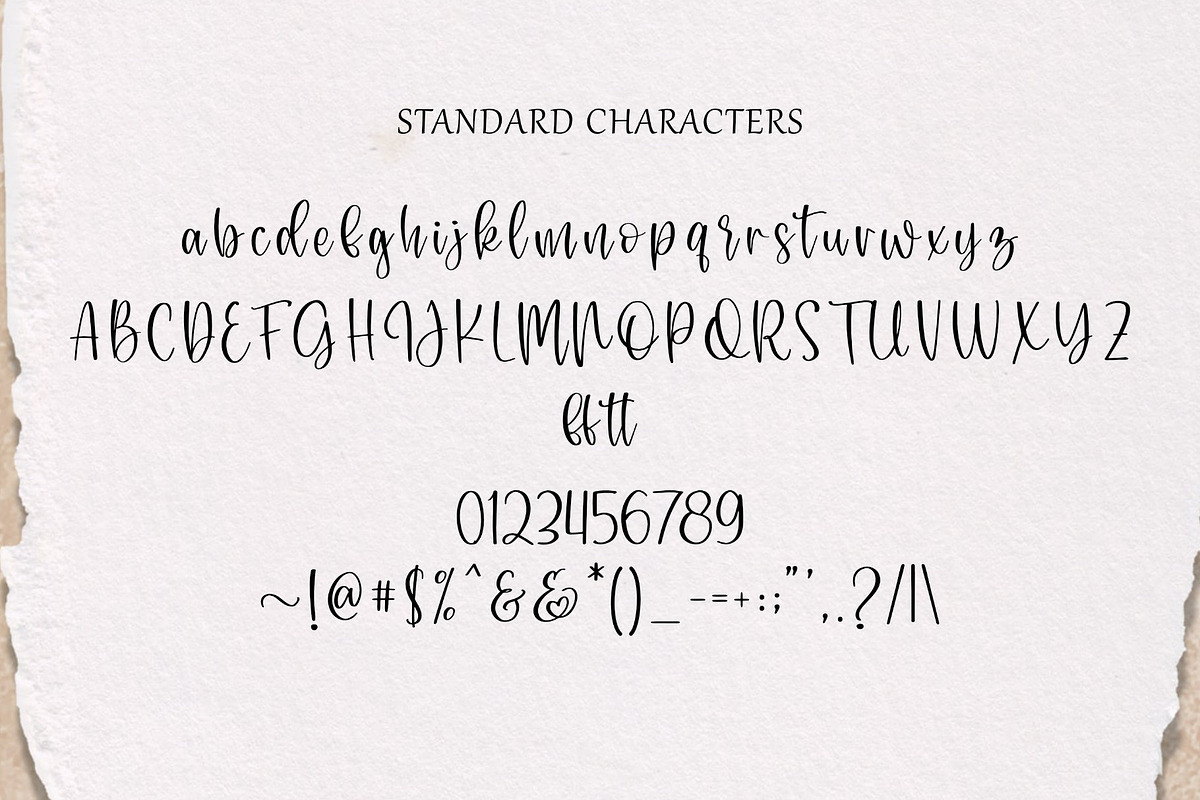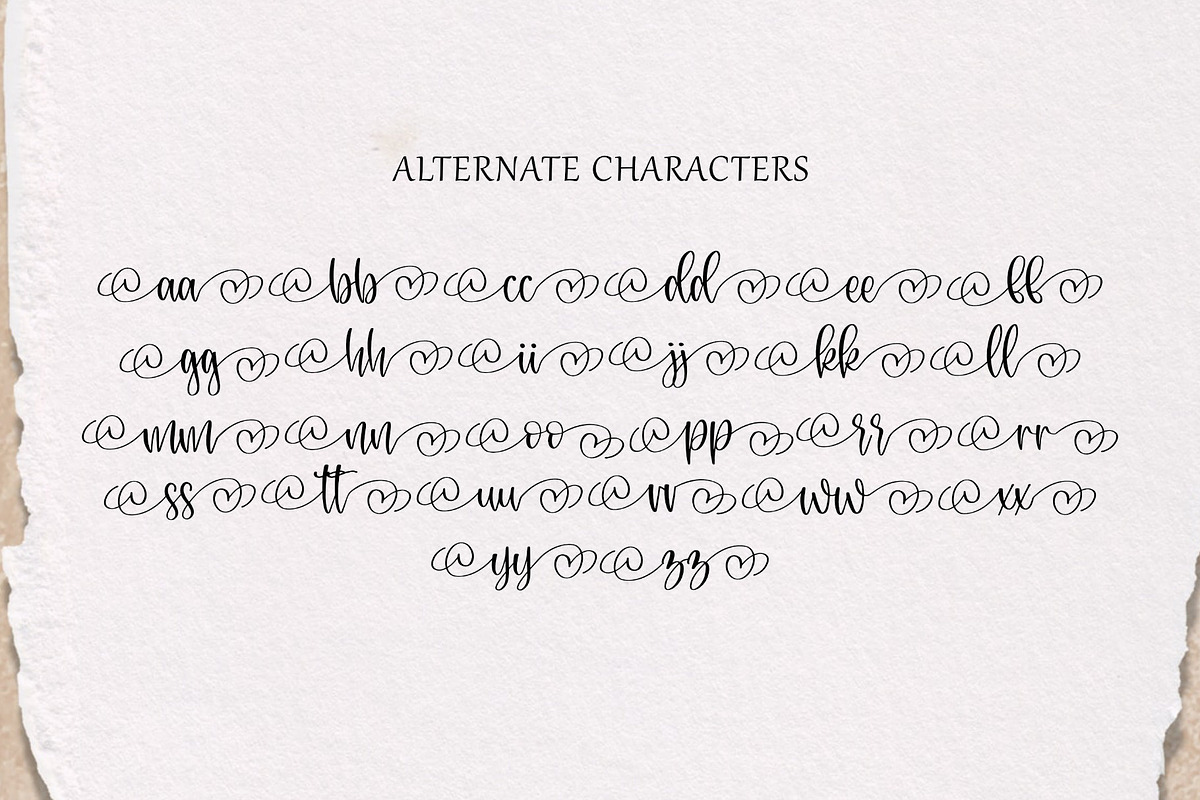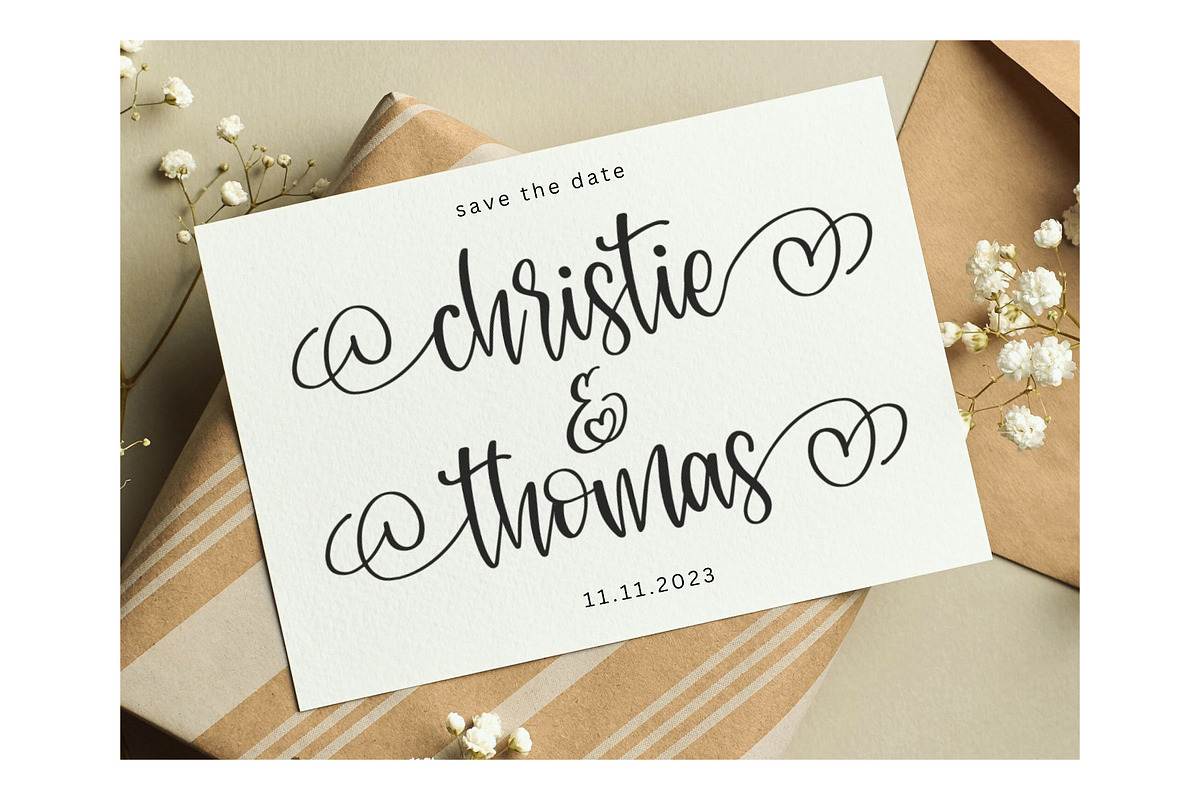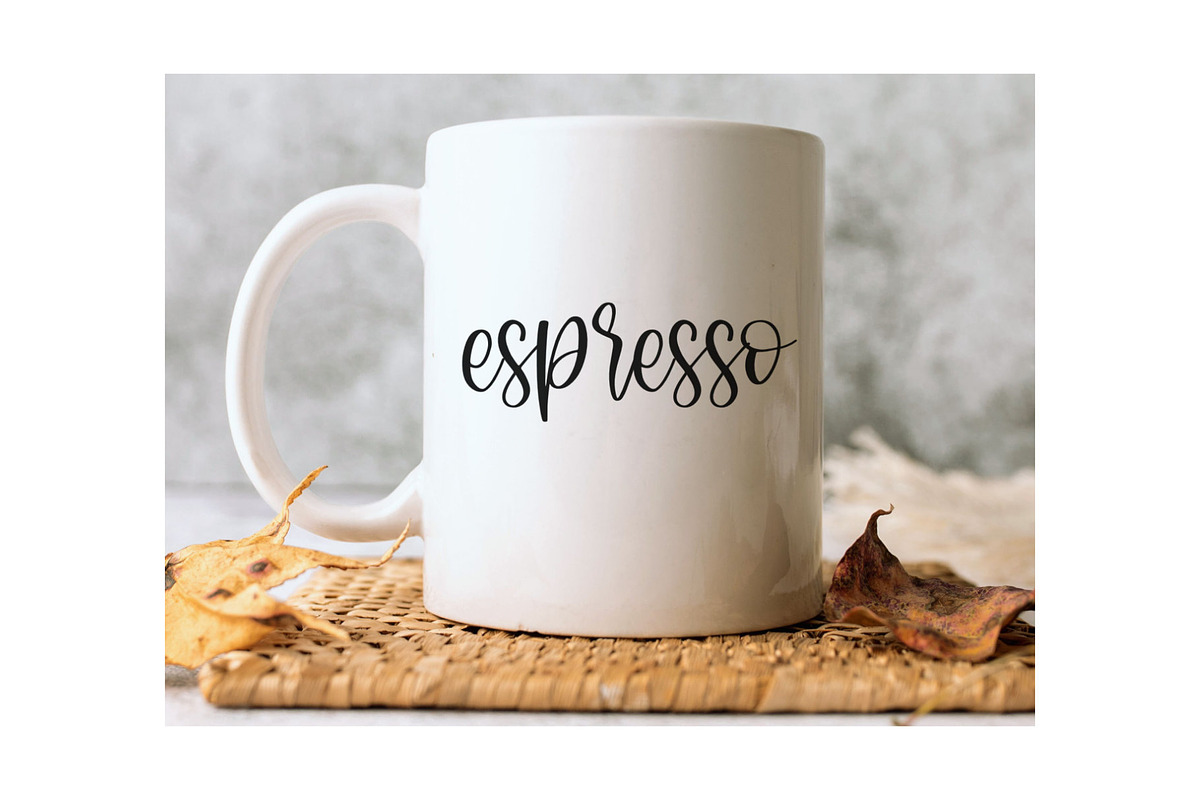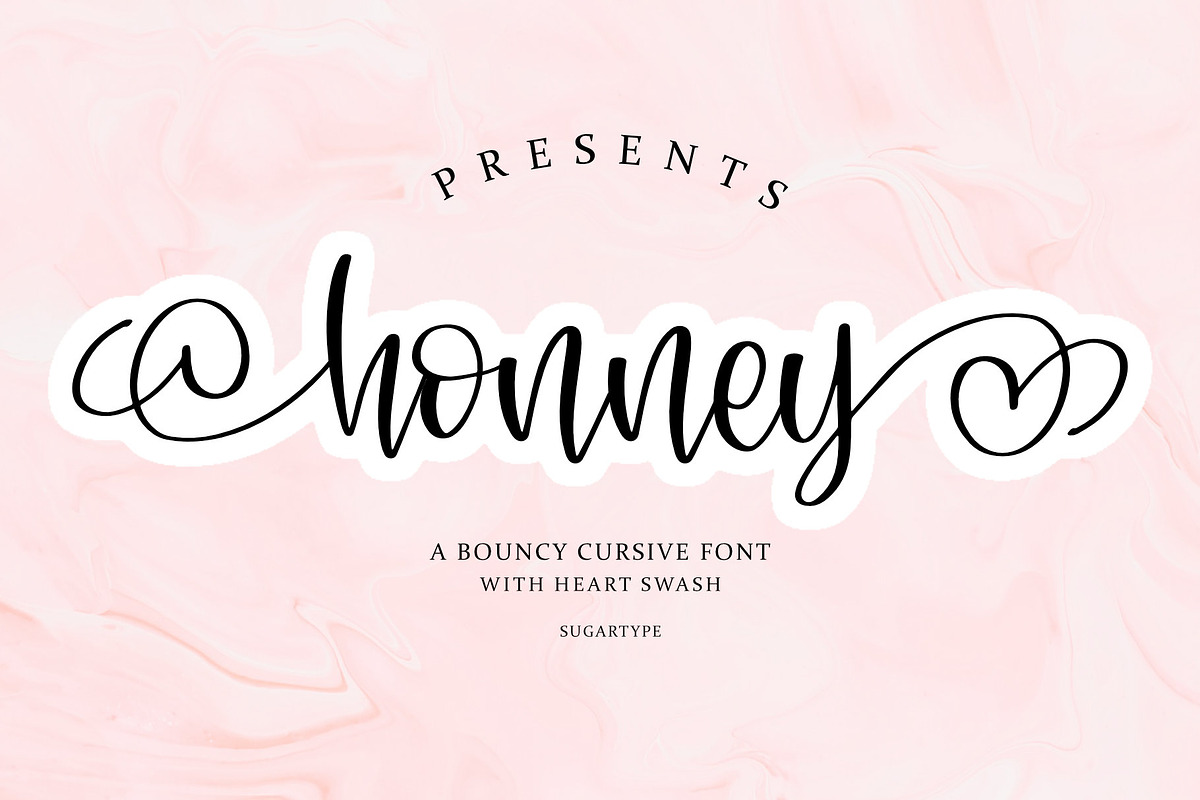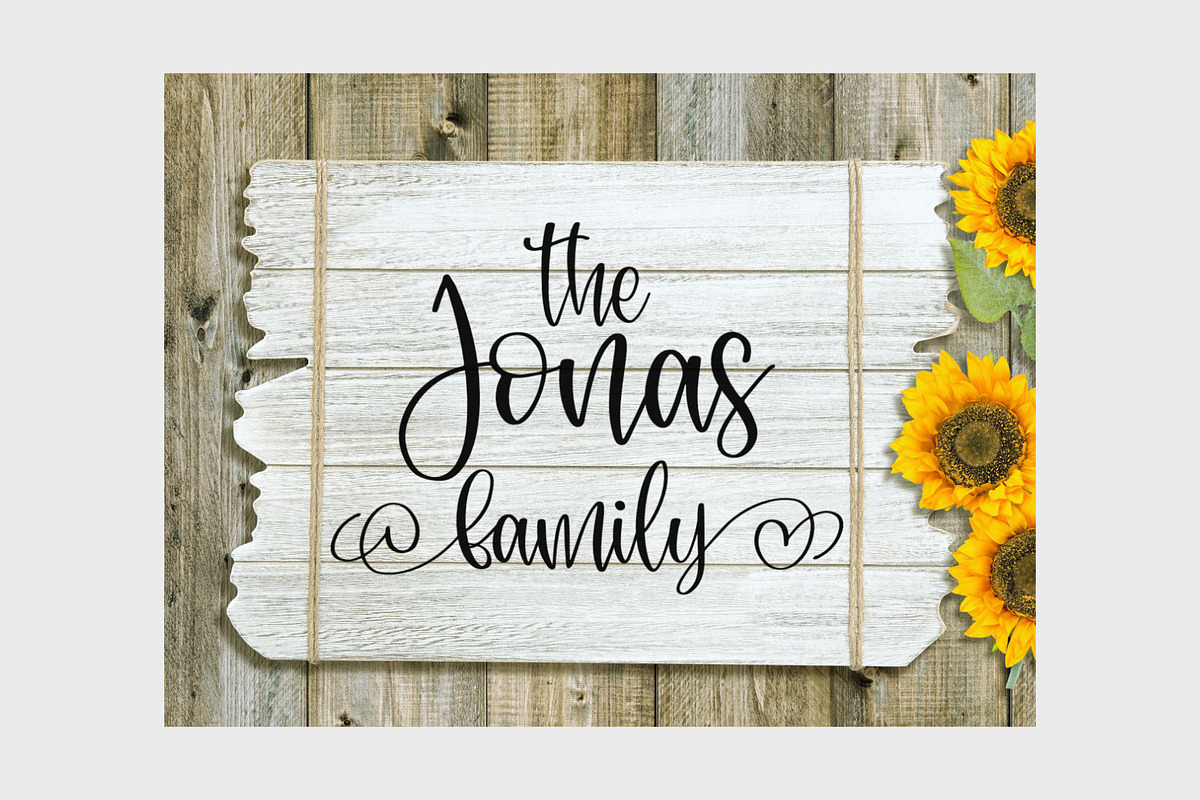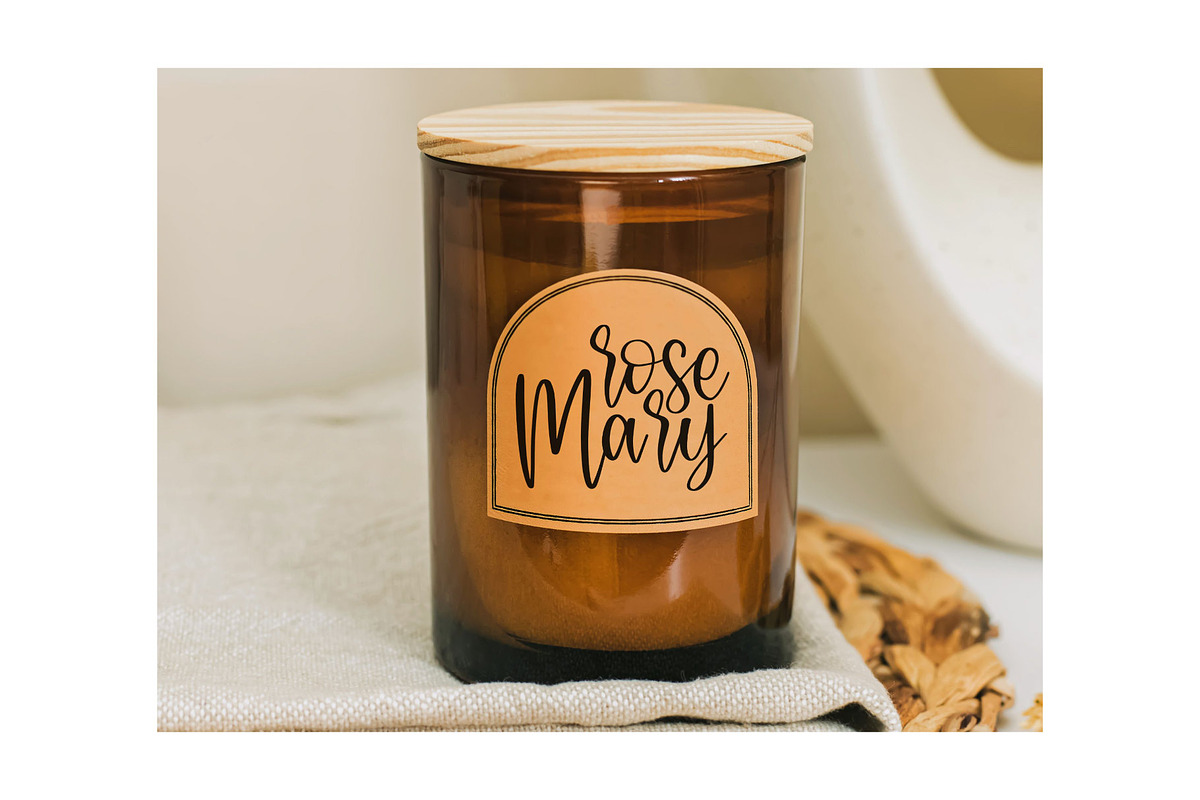
Honney | Cursive Handwritten Script
Honney is a cursive handwritten script font with a bouncy and expressive style. It features a heart-shaped tail that adds a romantic touch to the design. This font is thin and clean, making it an excellent choice for fashion, clothing, apparel, invitations, wall art, kitchen items, and any other crafts that require a simple, minimalist, and clean design.